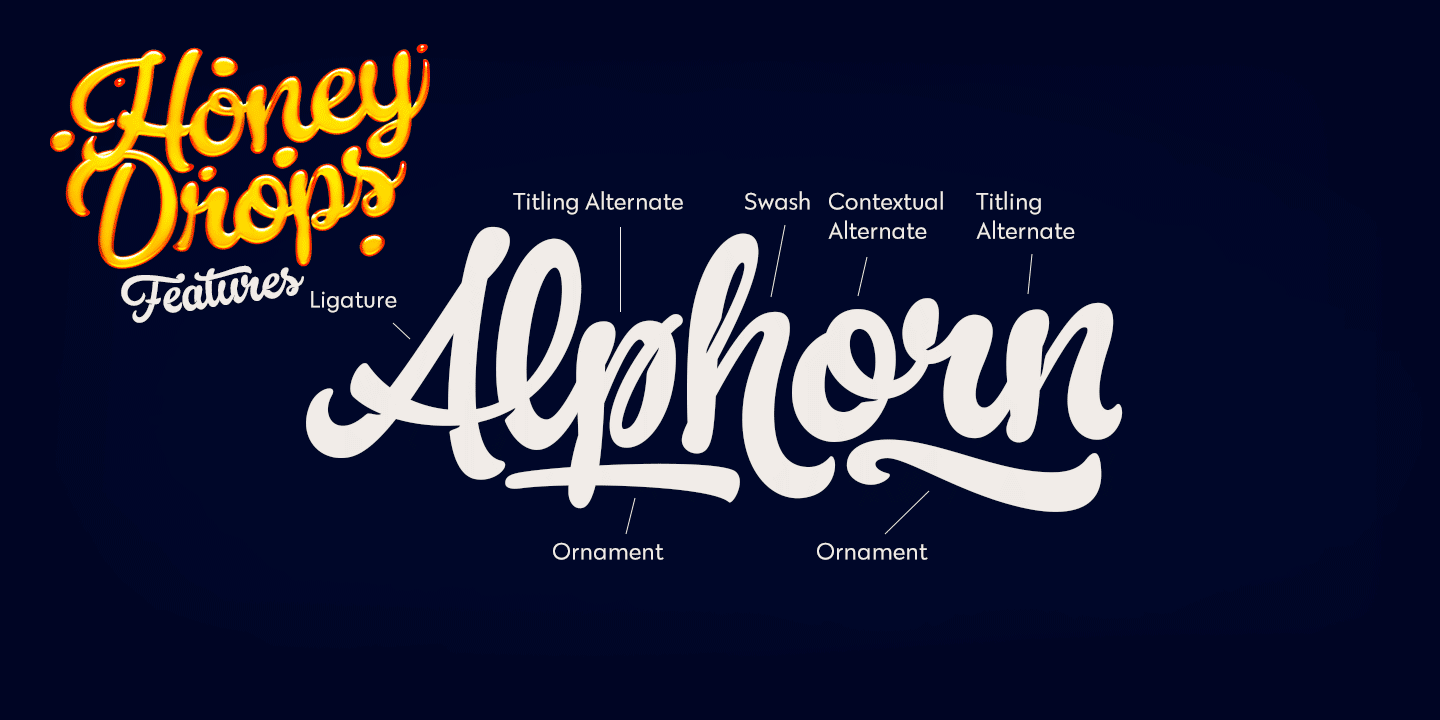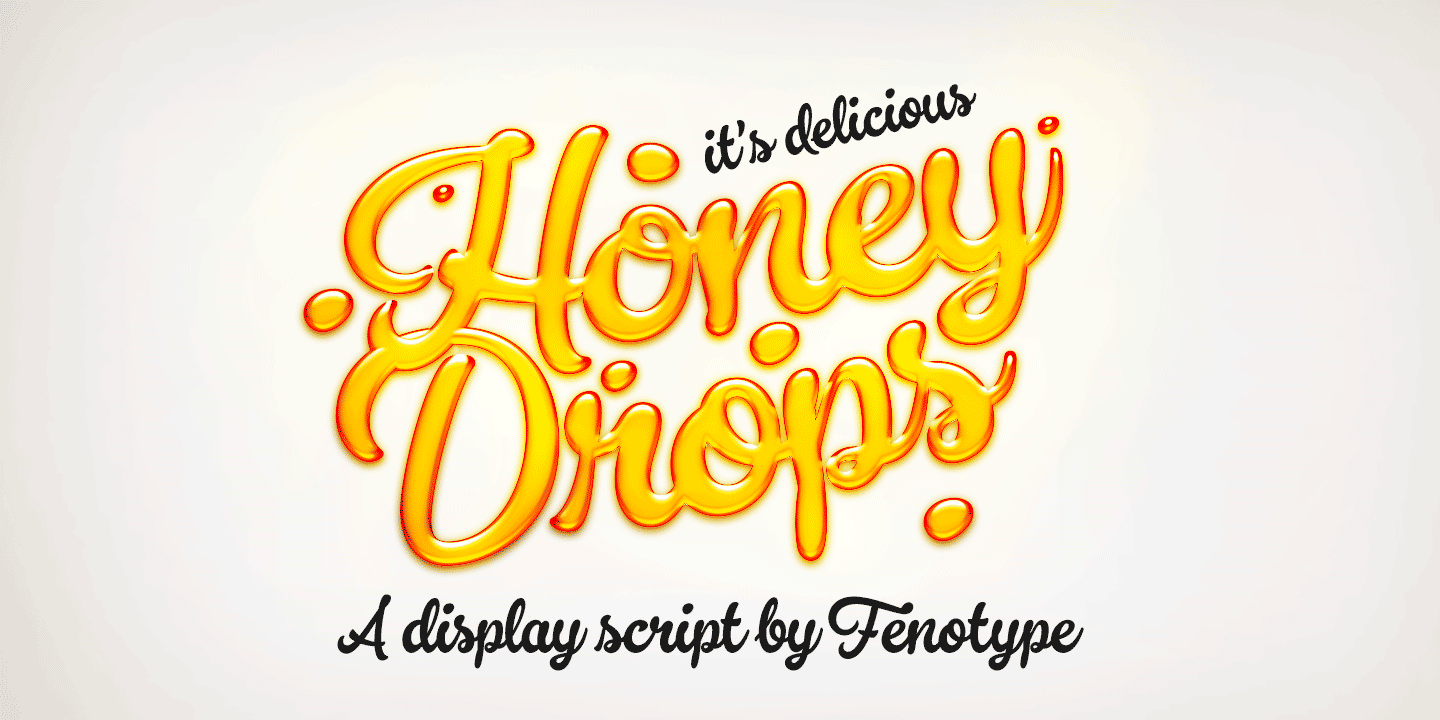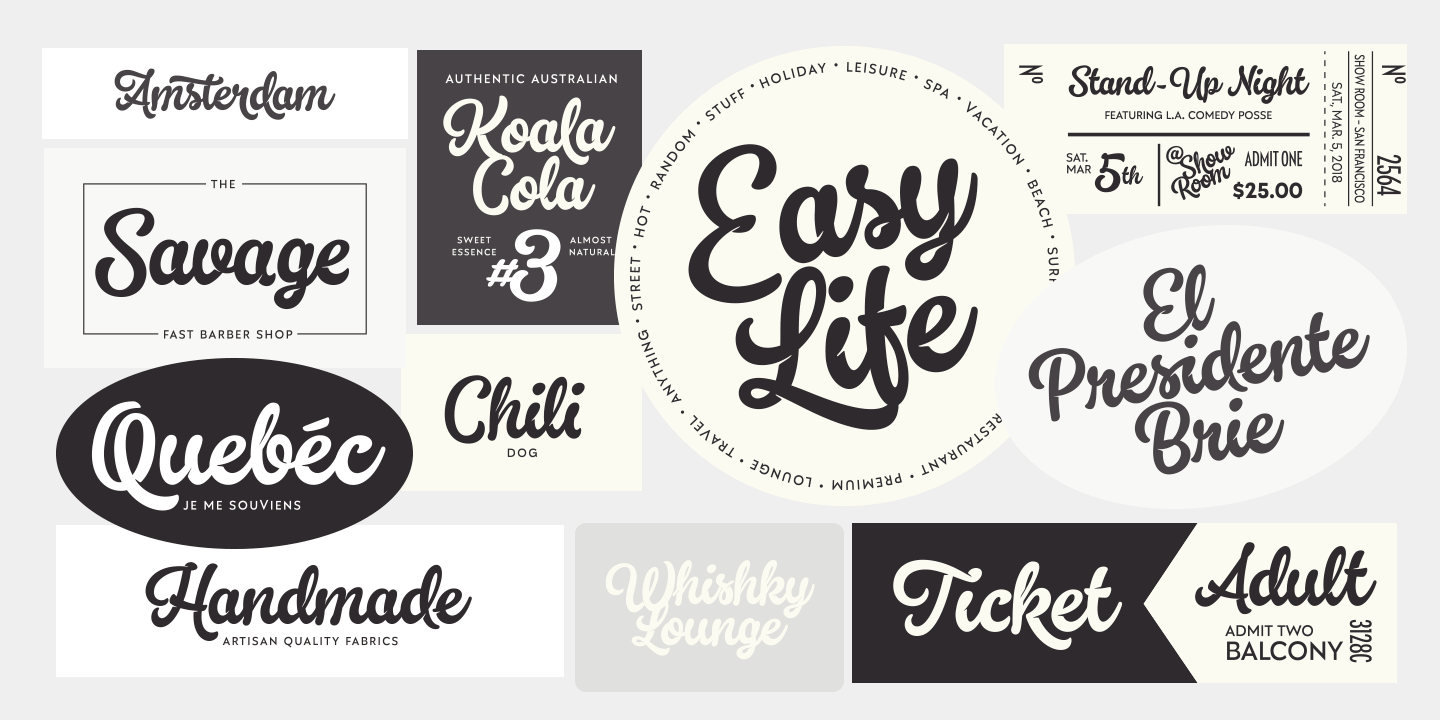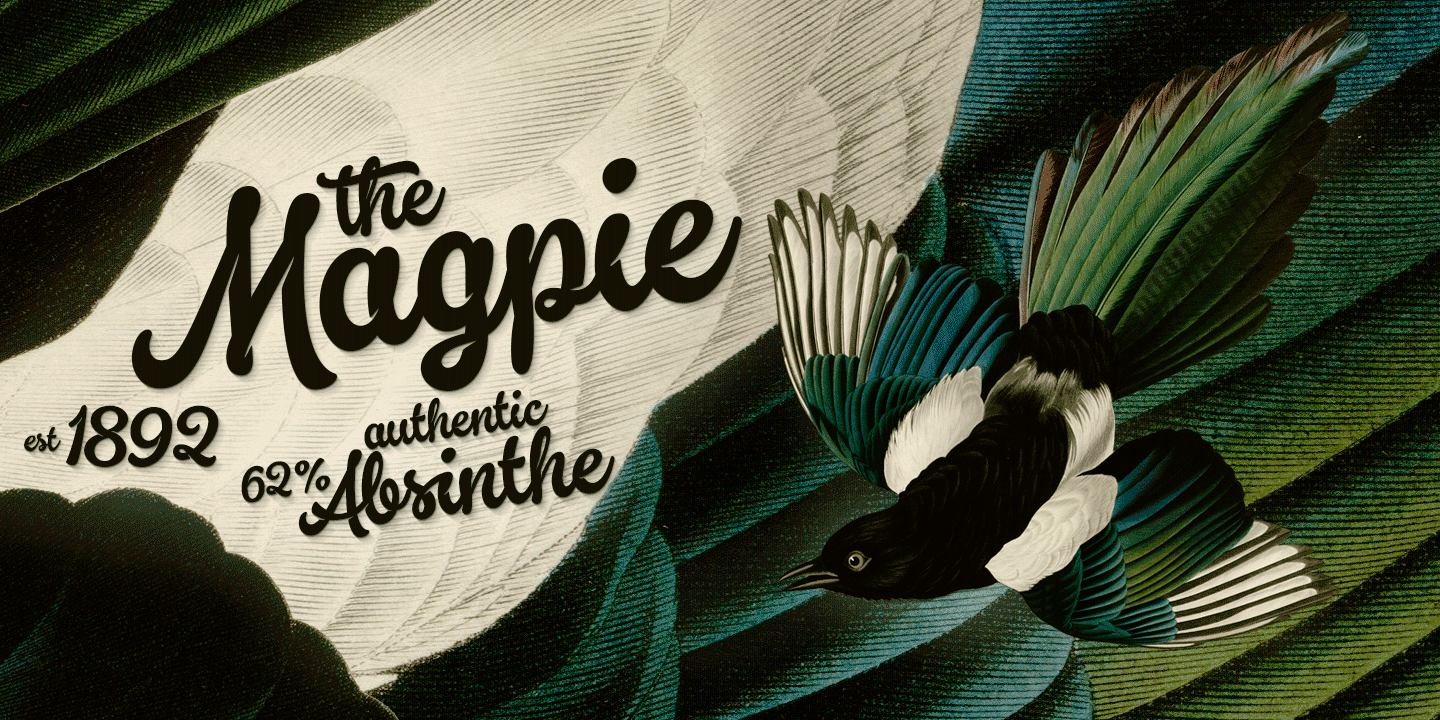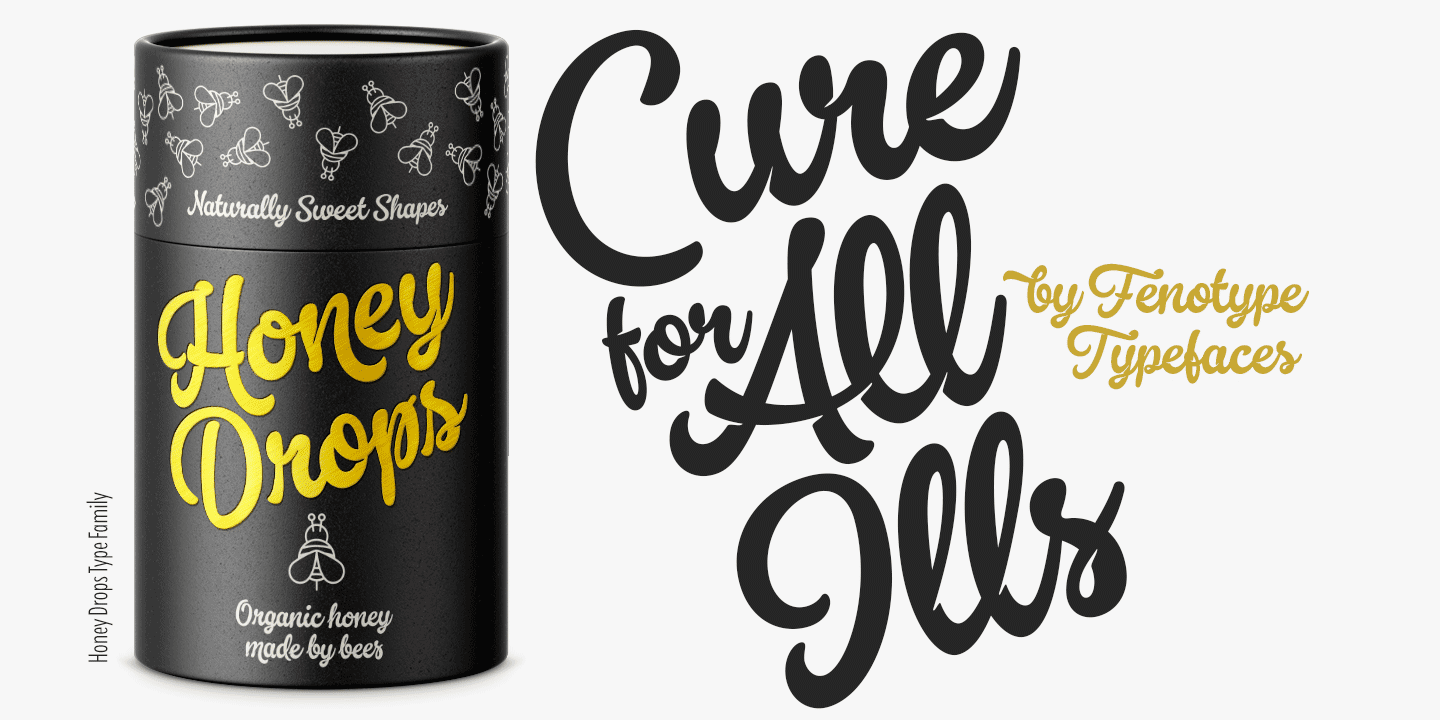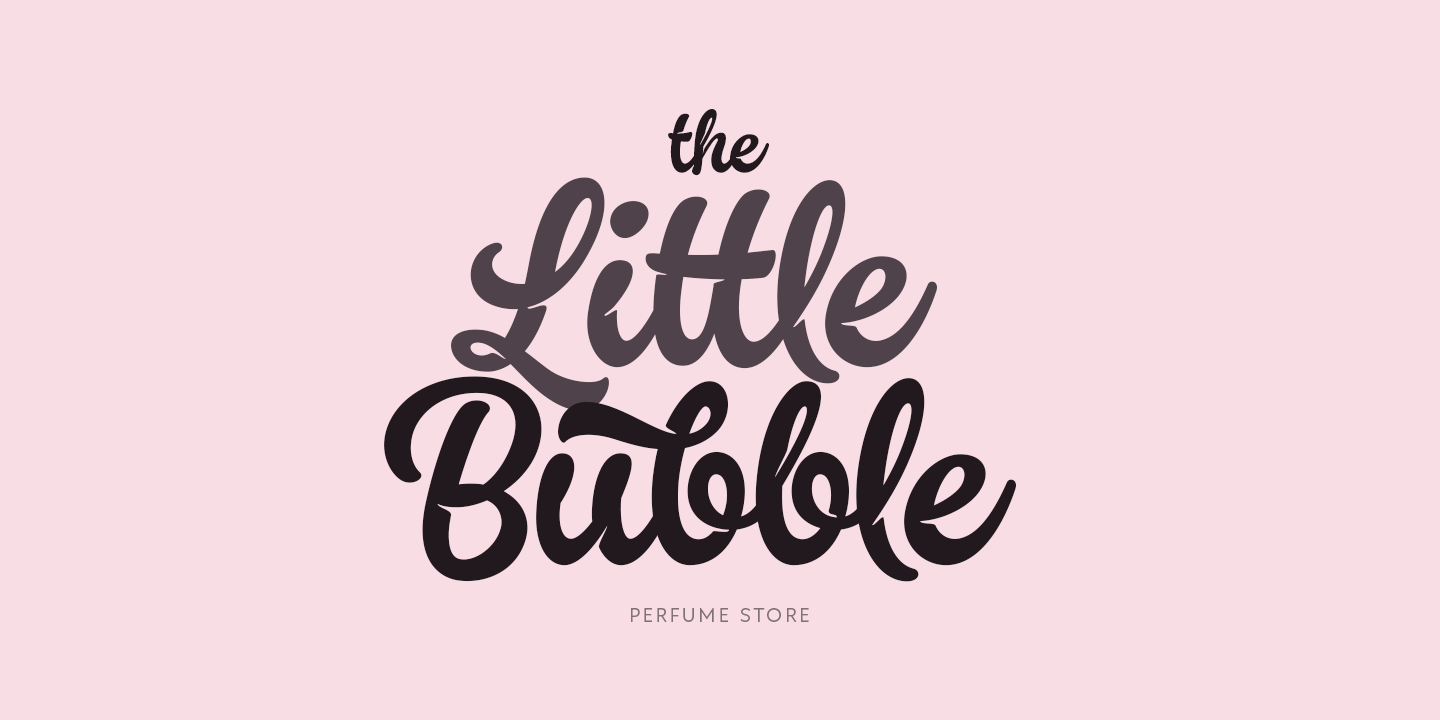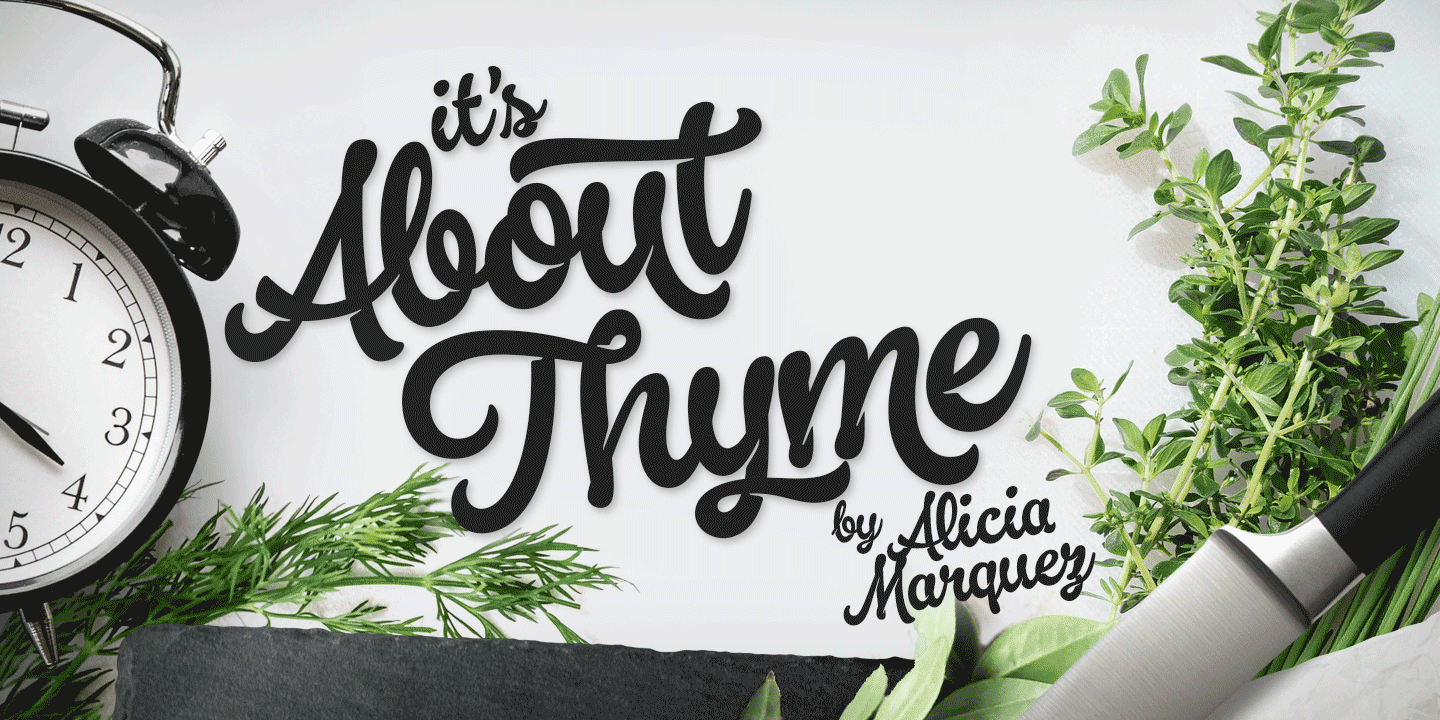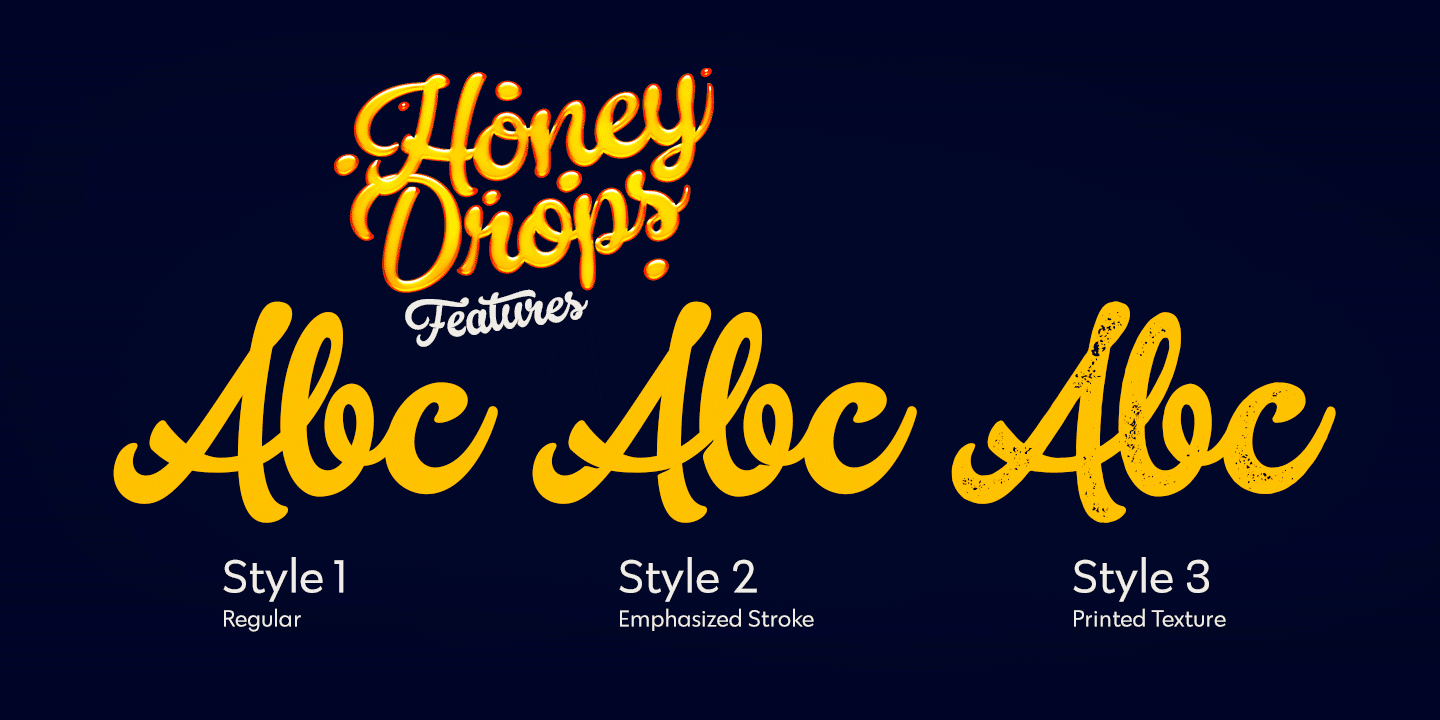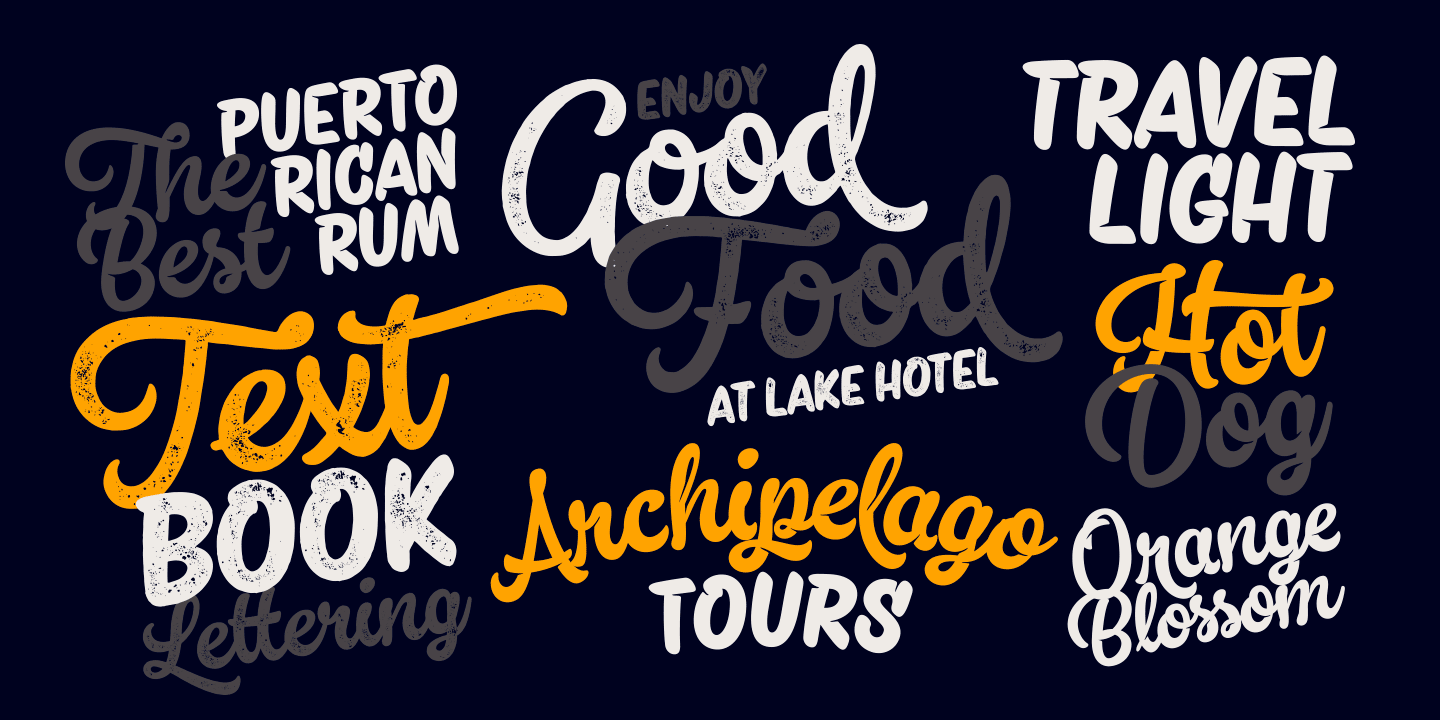
Honey Drops
Font Family by Fenotype
Honey Drops is a bold brush family with Script, casual Caps and Extras. Honey Drops is divided into three styles -regular, distressed and one with stylised cuts that strengthens the brush stroke.
Honey Drops is packed with several OpenType features: Contextual Alternates and Standard Ligatures are automatically on to keep the flow. For flashier characters try Swash or Titling Alternates. Font is PUA encoded so you can access extras from character map in most design softwares.